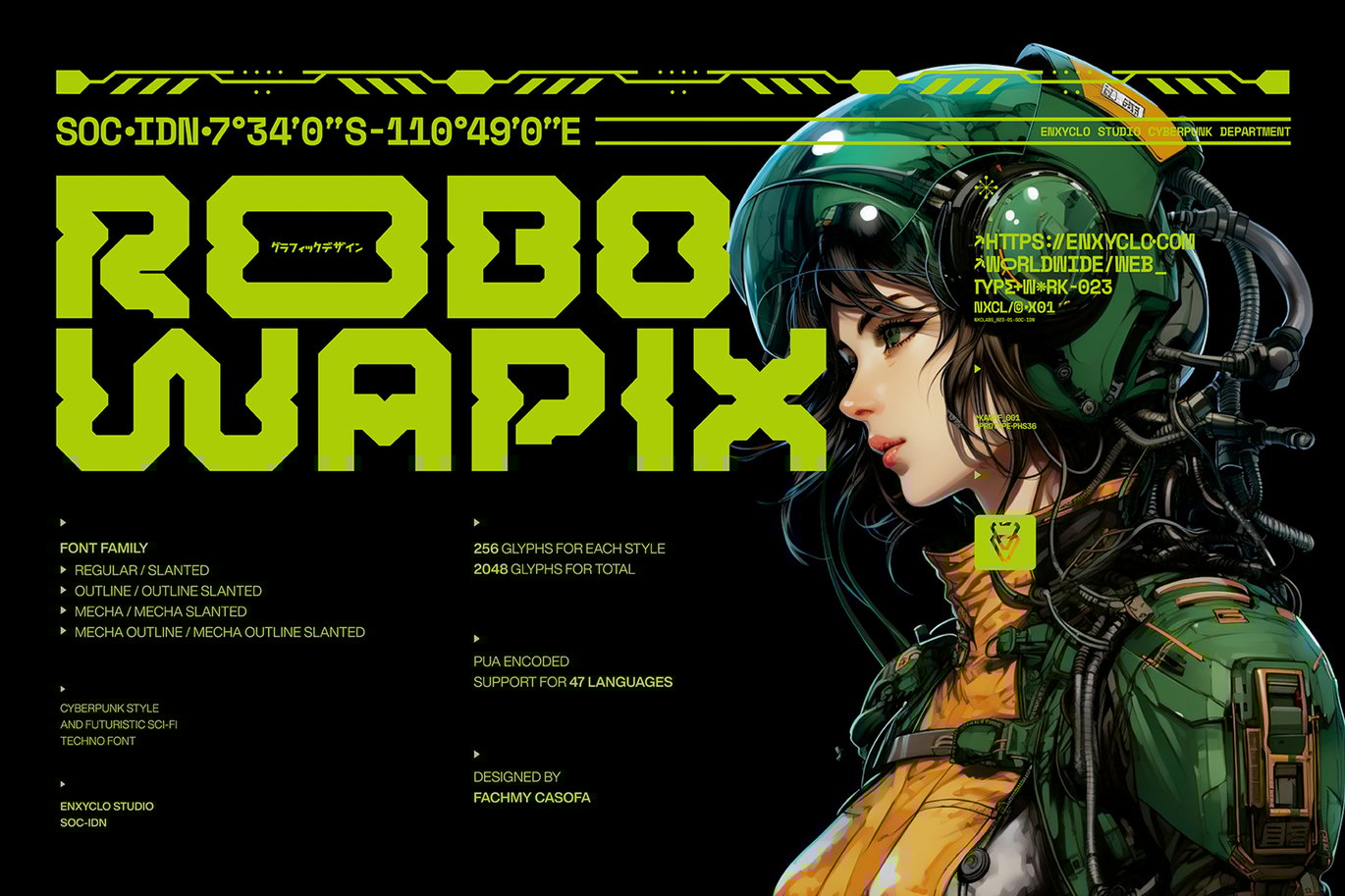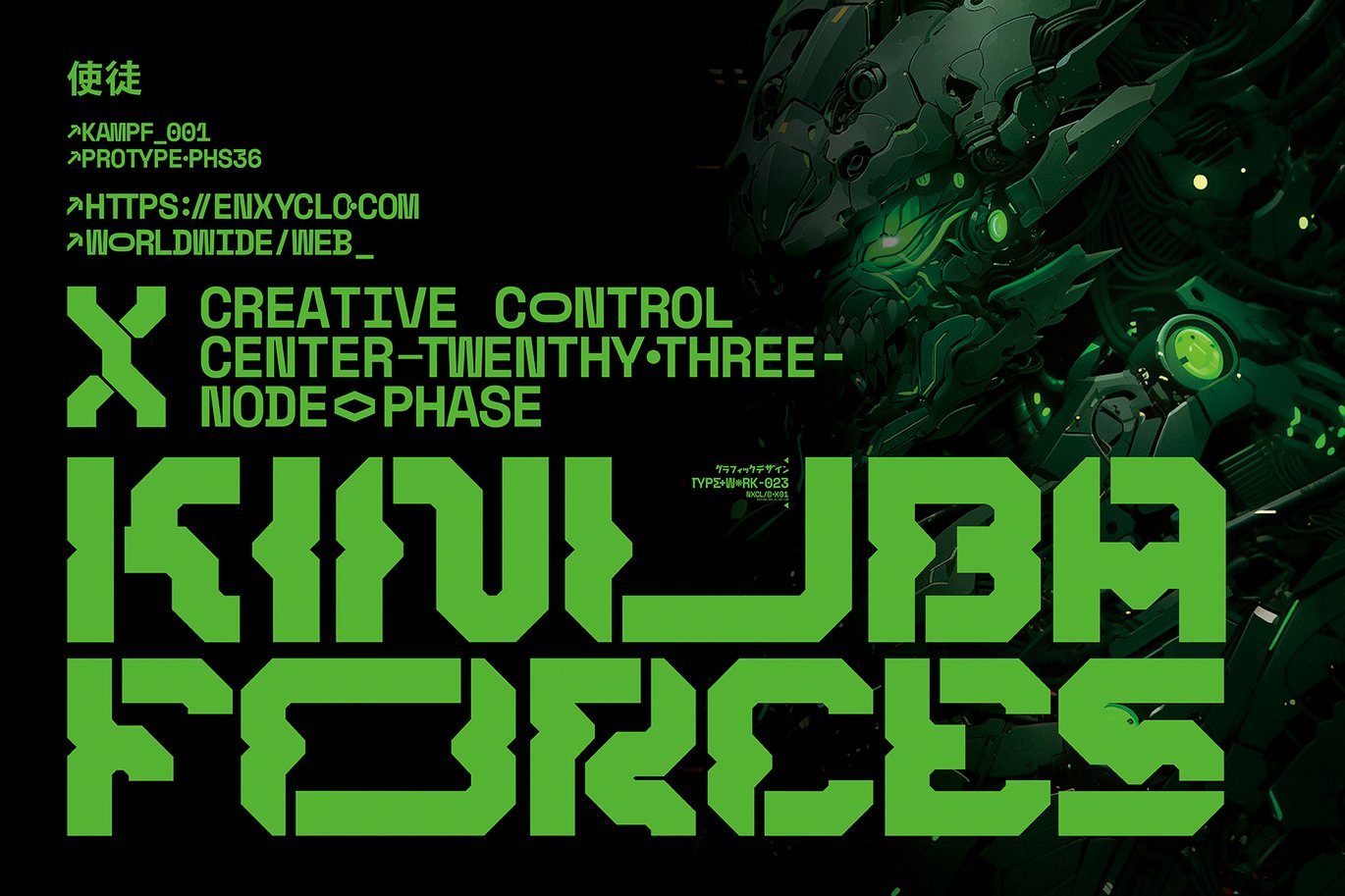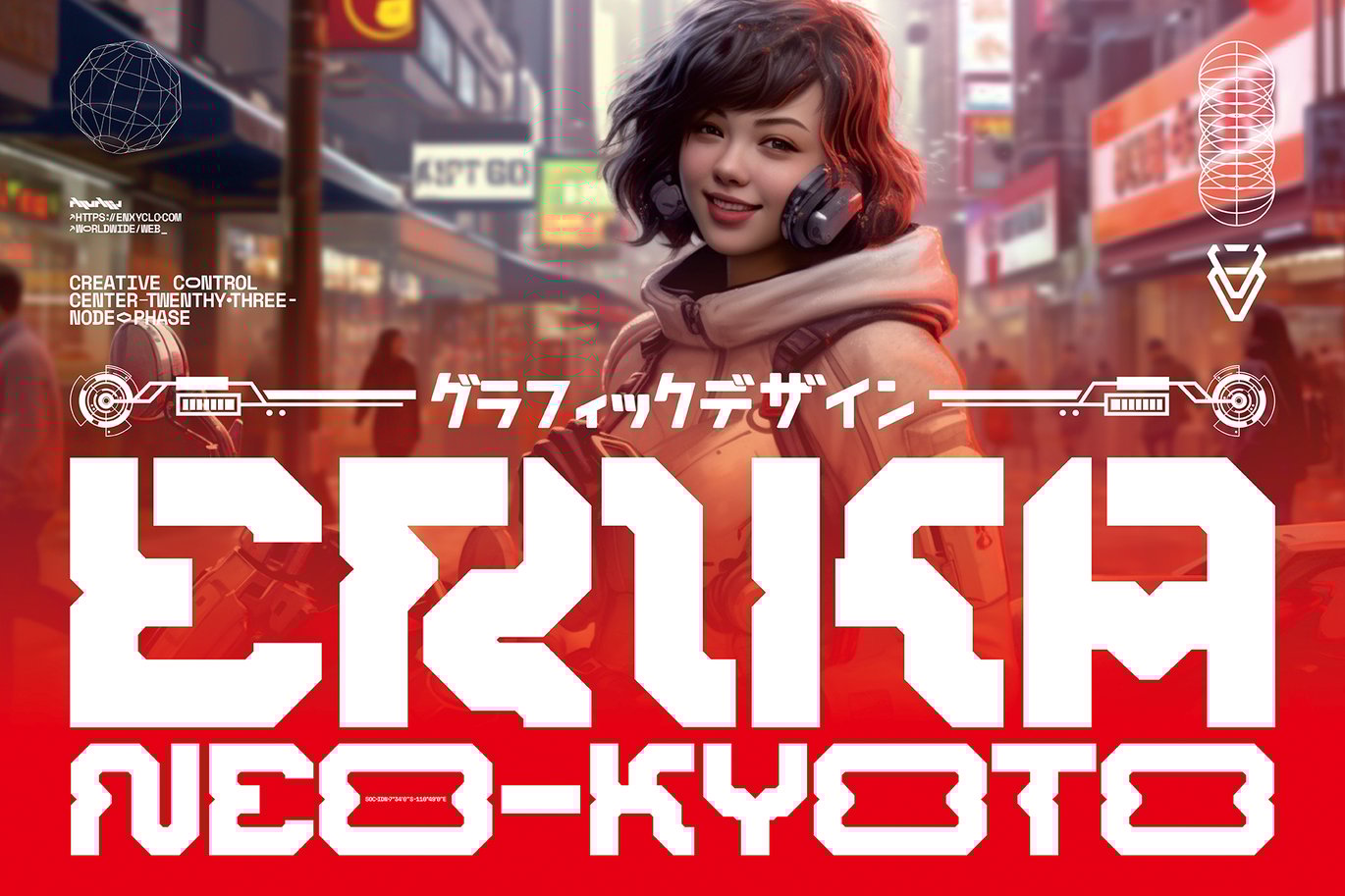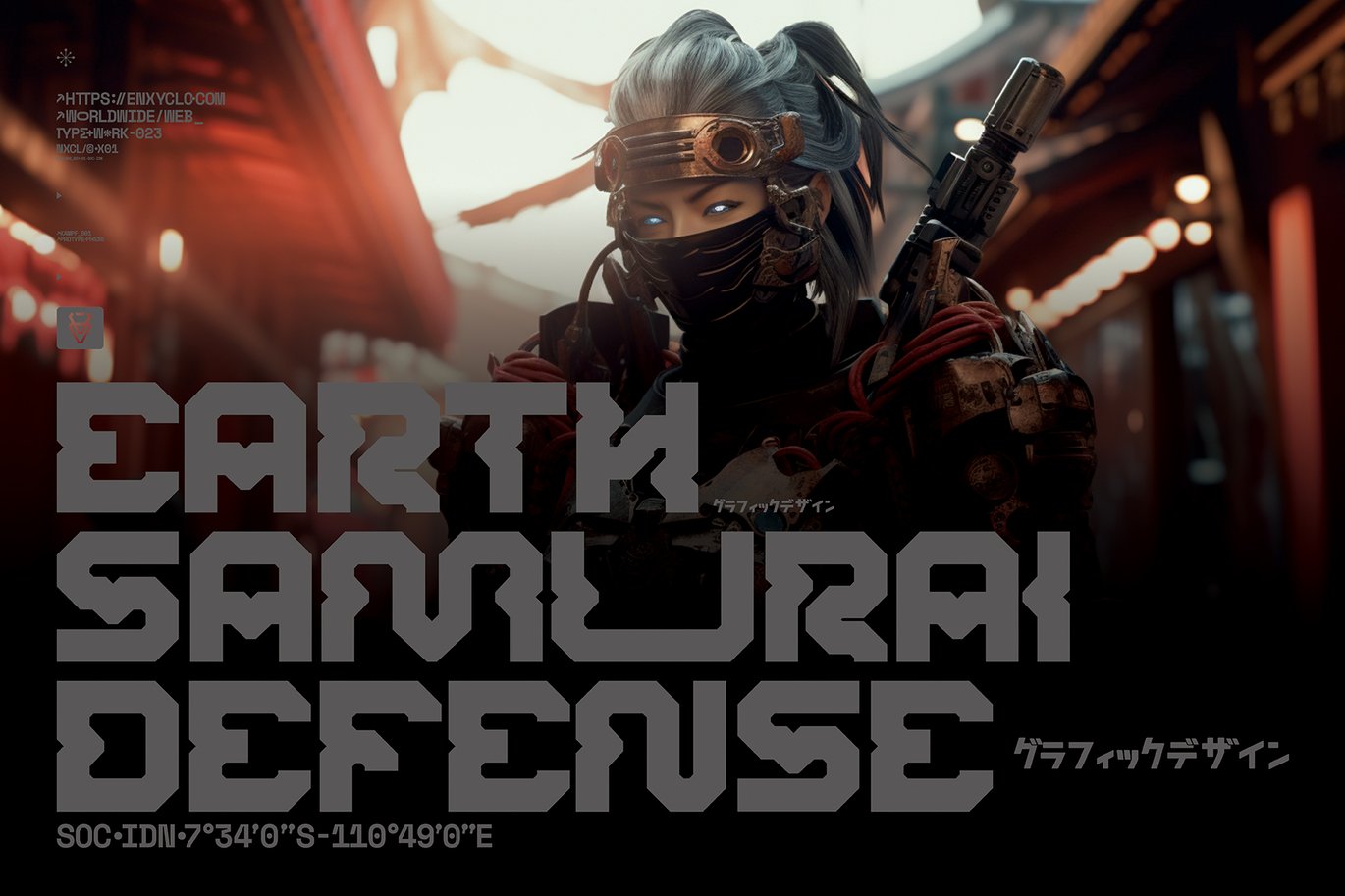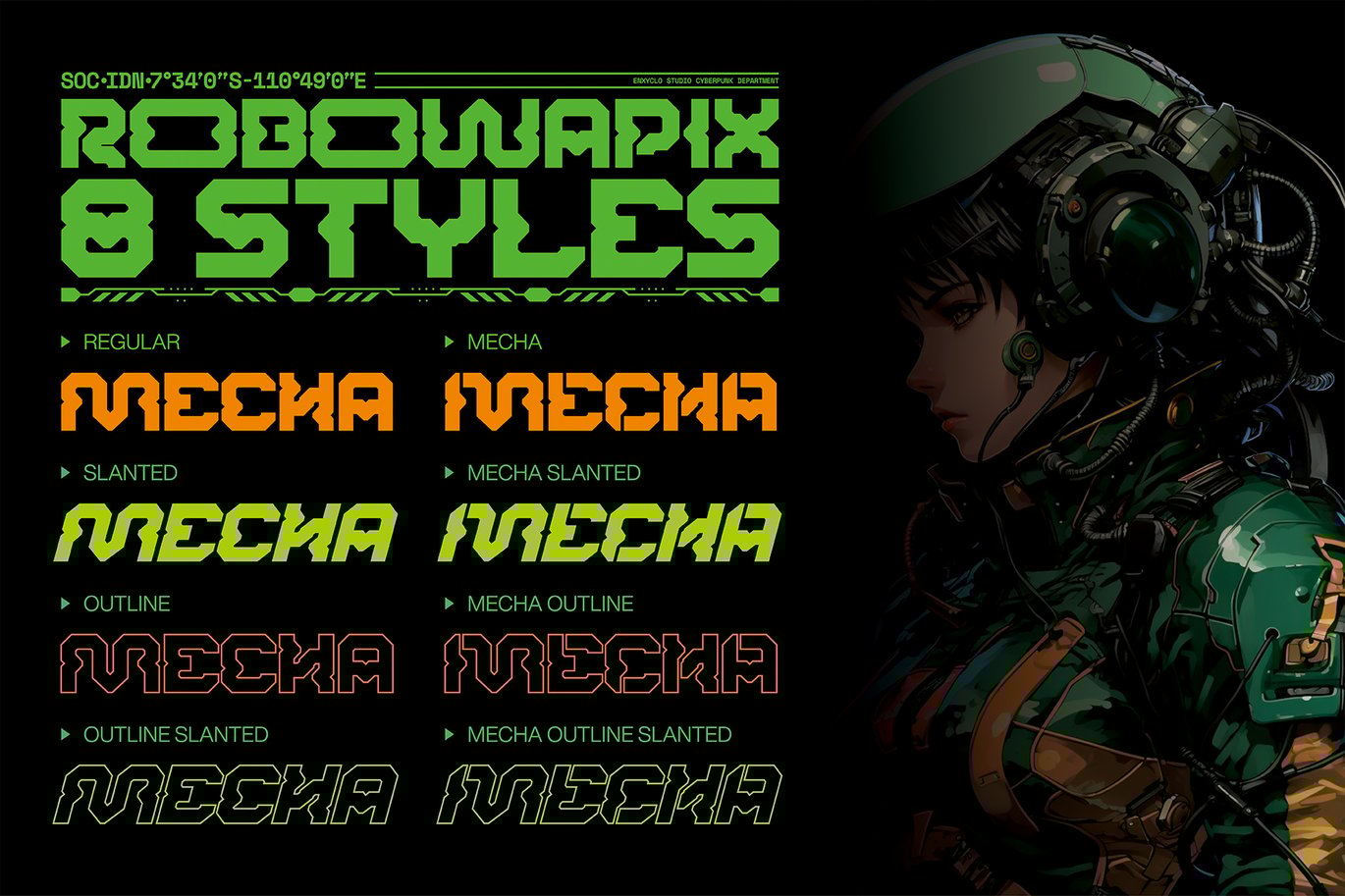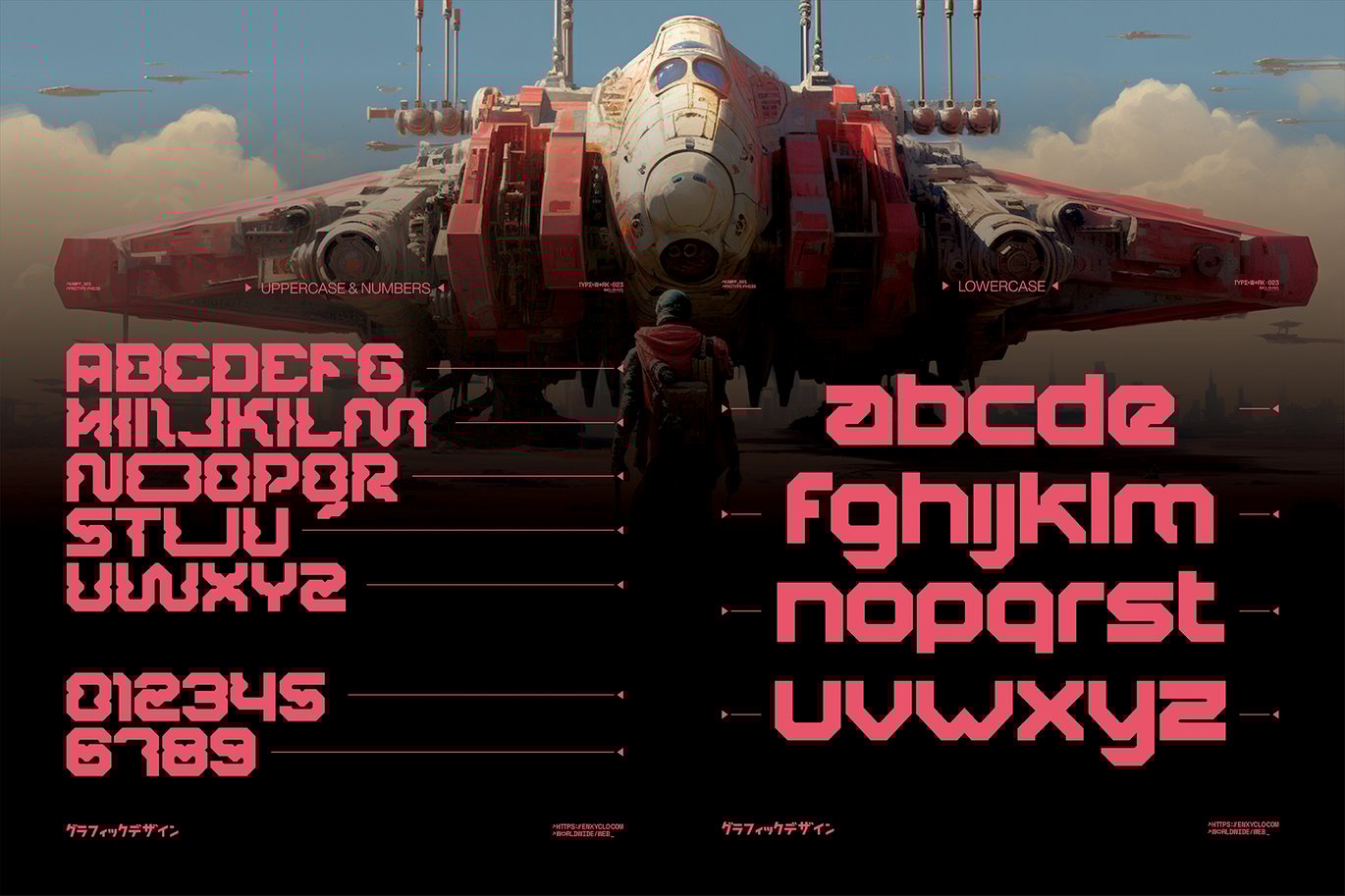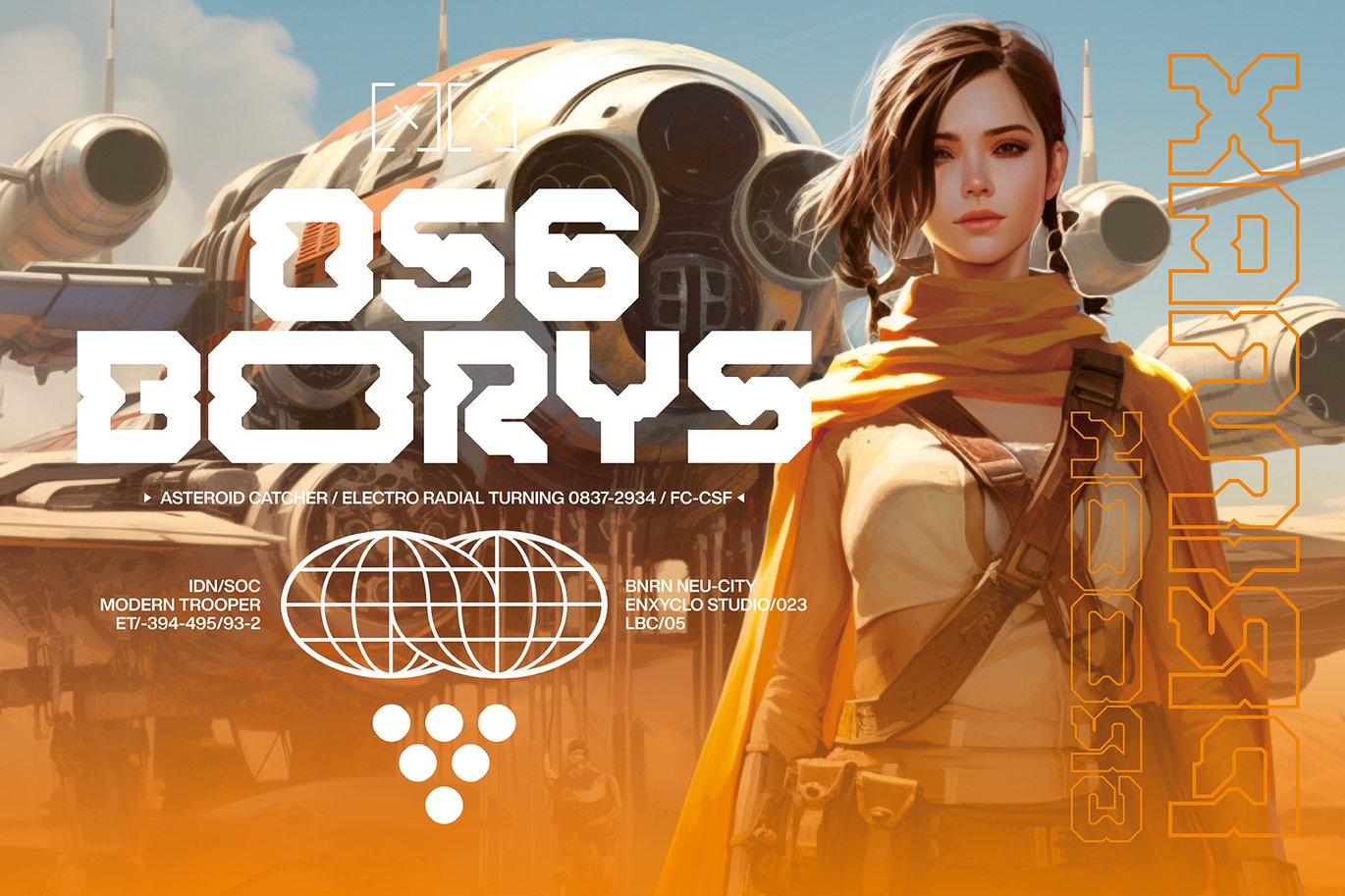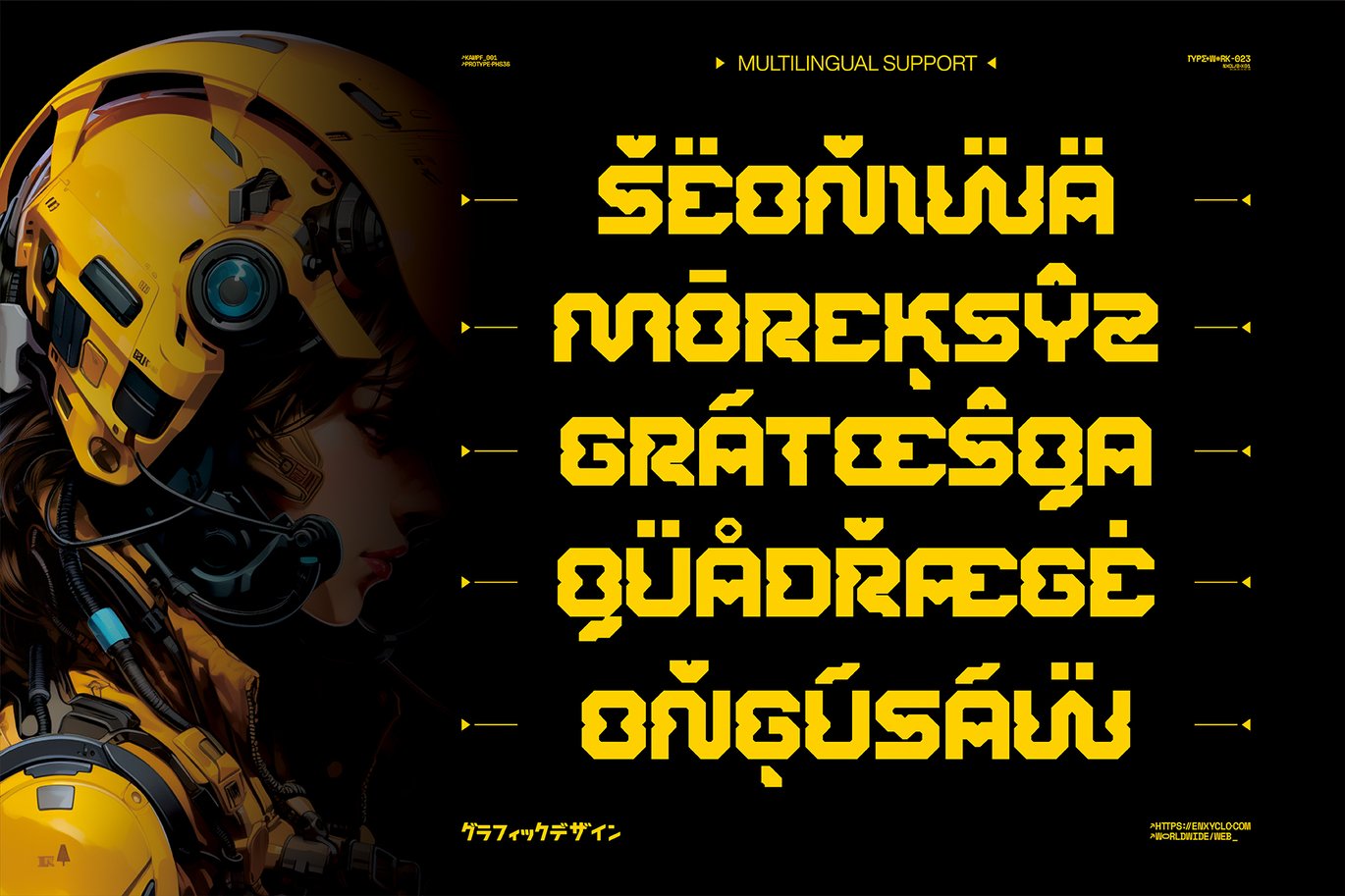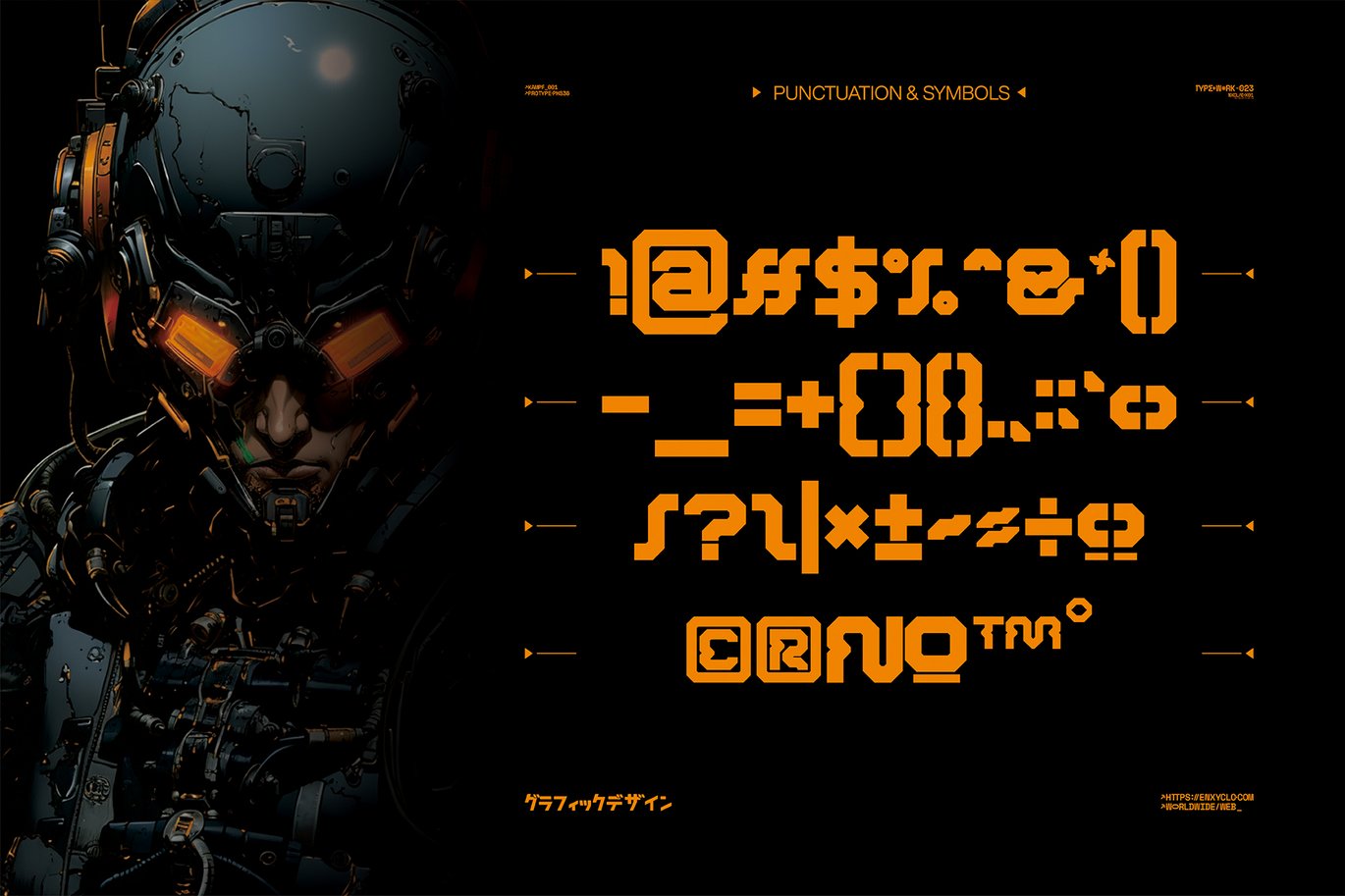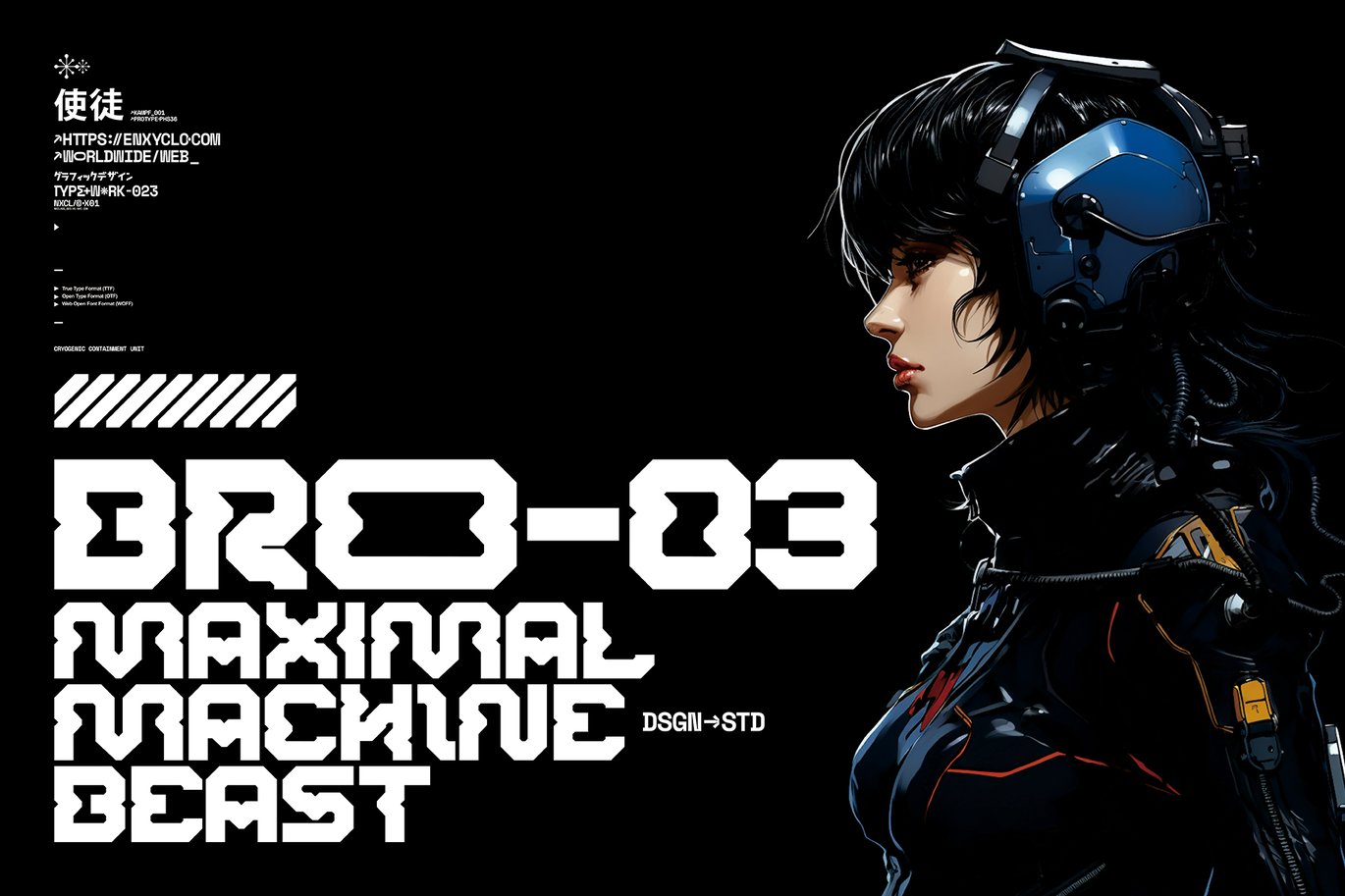
NCL Robowapix – Cyberpunk Futuristic Techno Font
NCL ROBOWAPIX is not your ordinary font; it’s a cyberpunk futuristic techno mecha font with 8 styles (Regular, Regular Slanted, Regular Outline, Regular Outline Slanted, Mecha, Mecha Slanted, Mecha Outline, Mecha Outline Slanted) that takes your creativity to the next level. Its futuristic aesthetics bring a whole new dimension to your designs, making them stand out. Whether you’re working on a website, poster, logo, or any other project, this font adds that extra touch of innovation and sophistication.
- 8 Styles: Regular, Regular Slanted, Regular Outline, Regular Outline Slanted, Mecha, Mecha Slanted, Mecha Outline, Mecha Outline Slanted
- Contains 256 Glyphs for Each Style and 2048 Glyphs for Total
- Numeral, Punctuation & Symbols